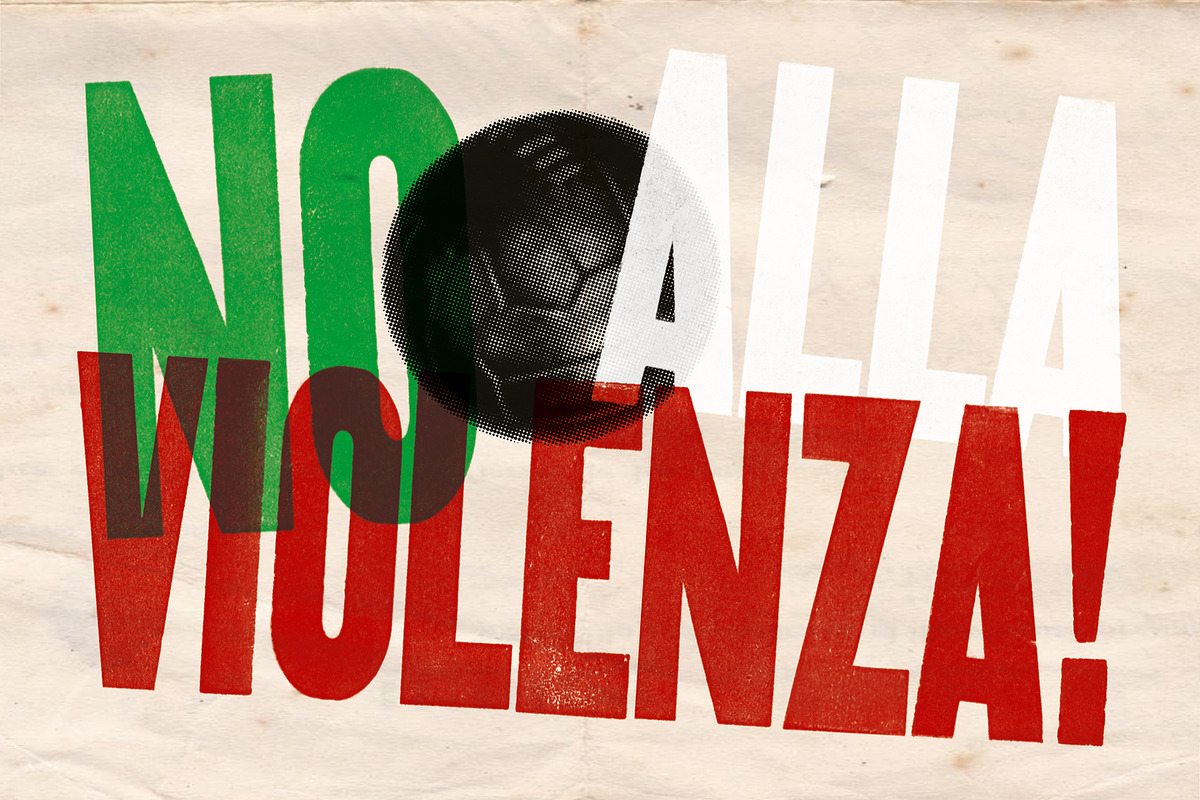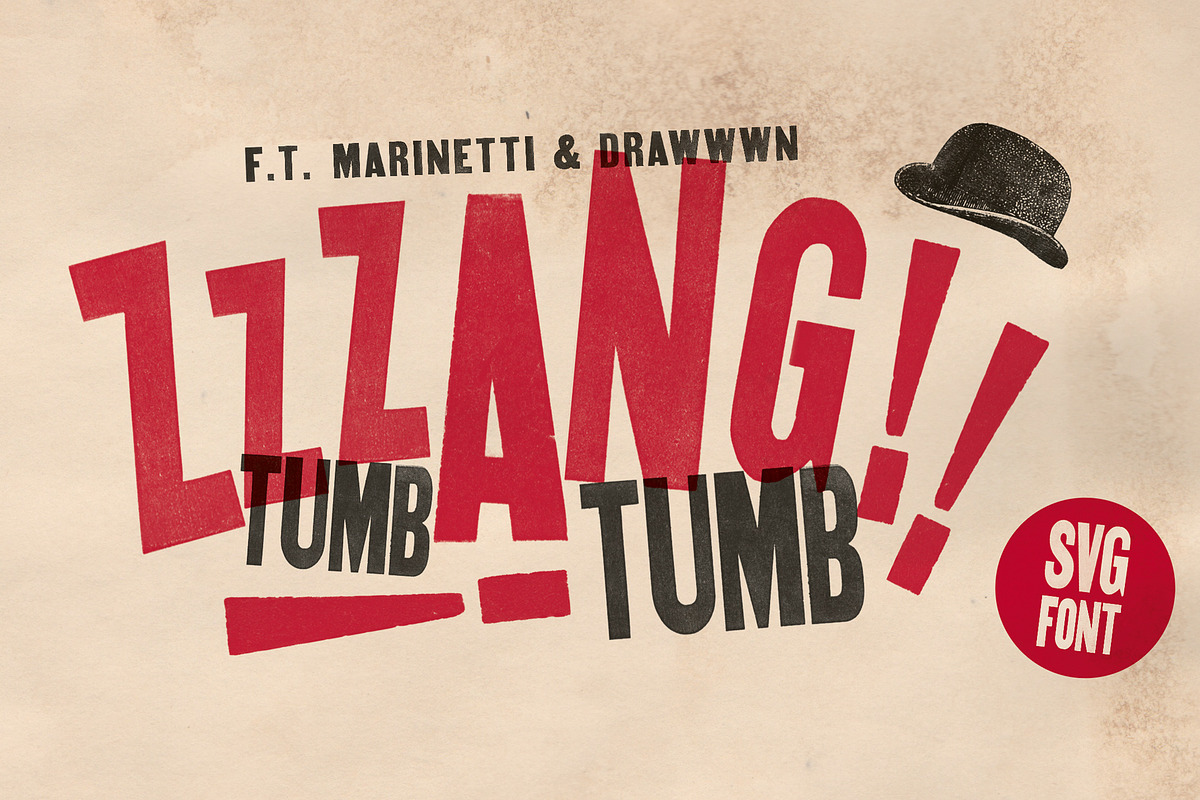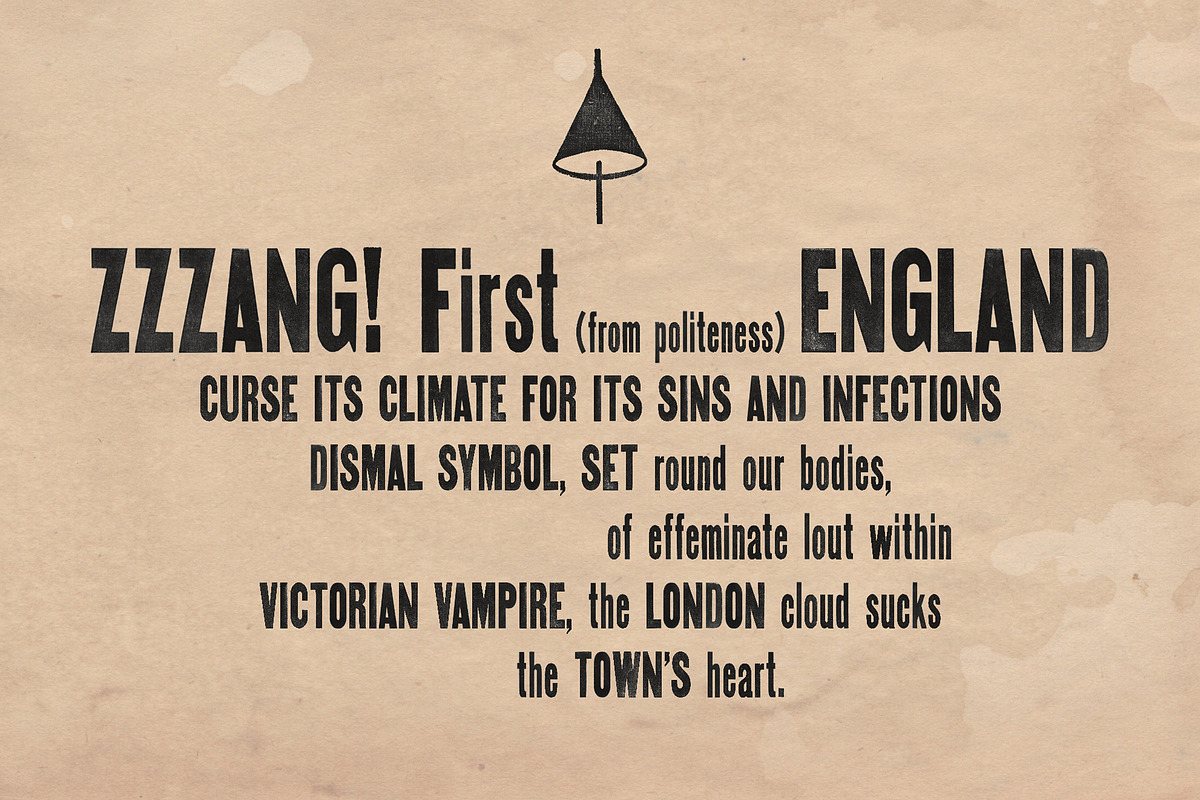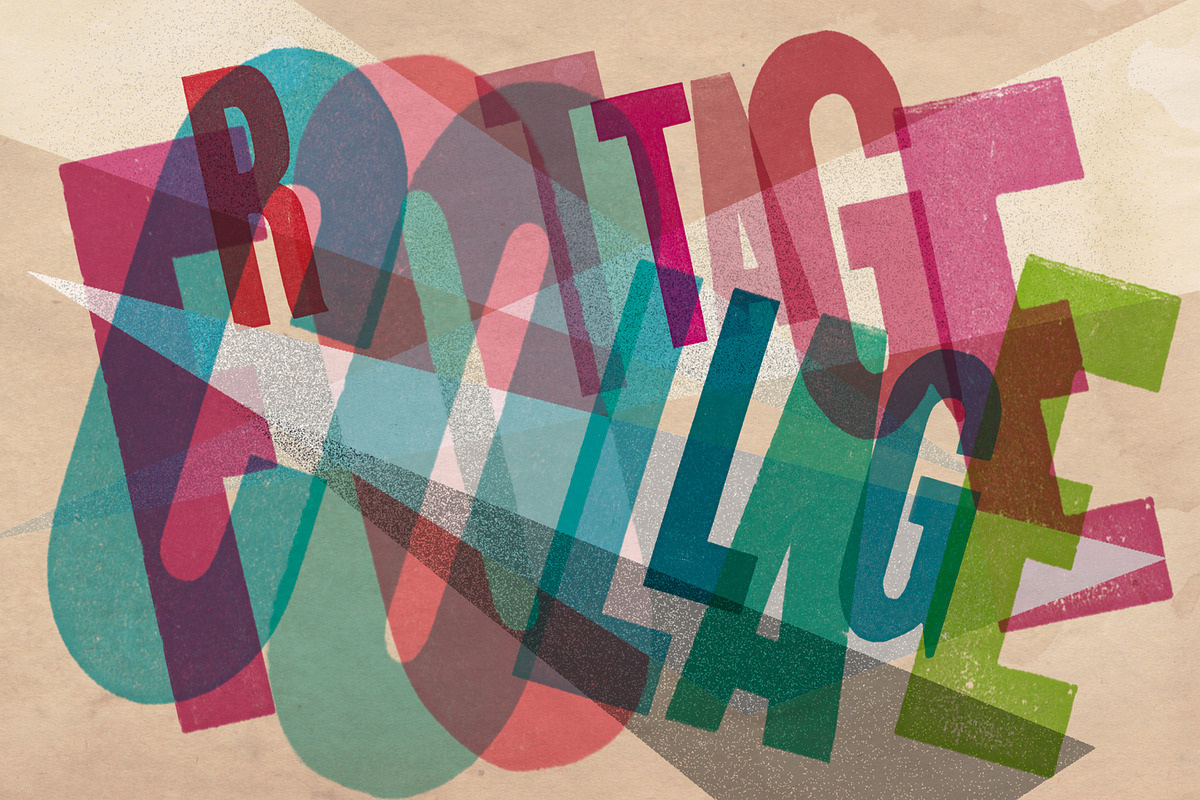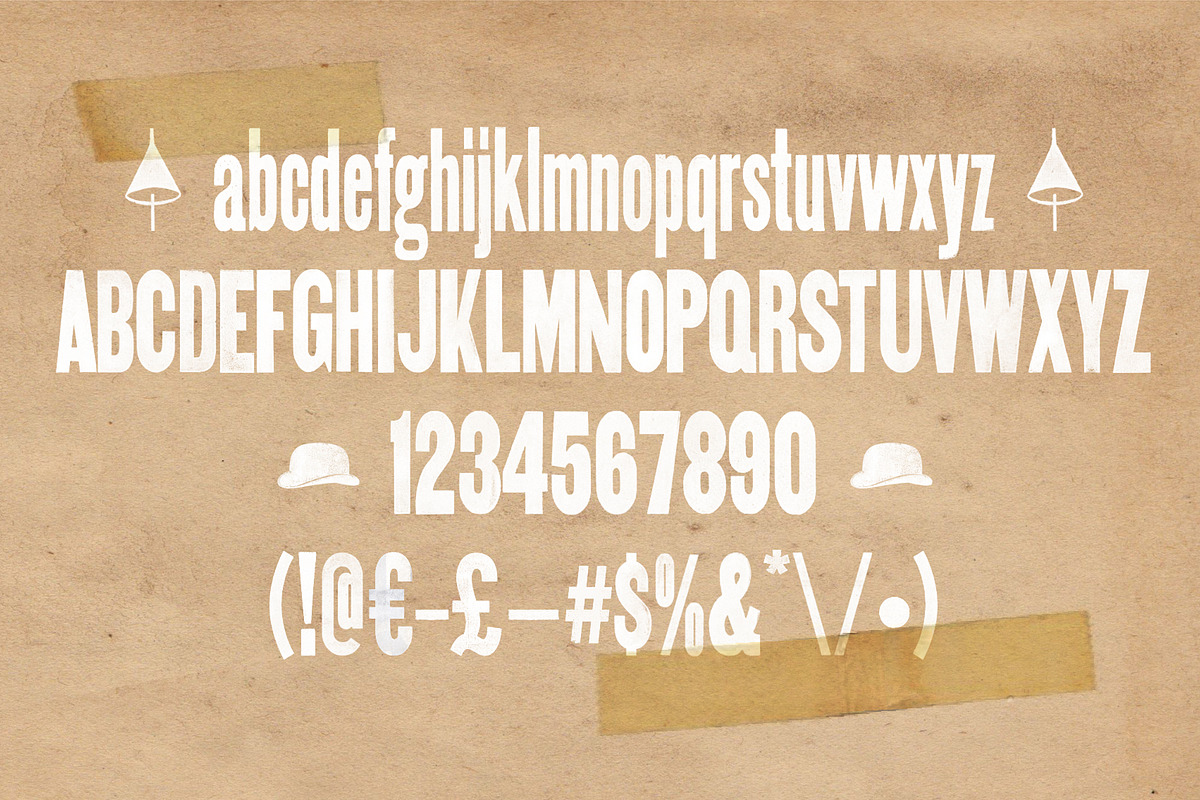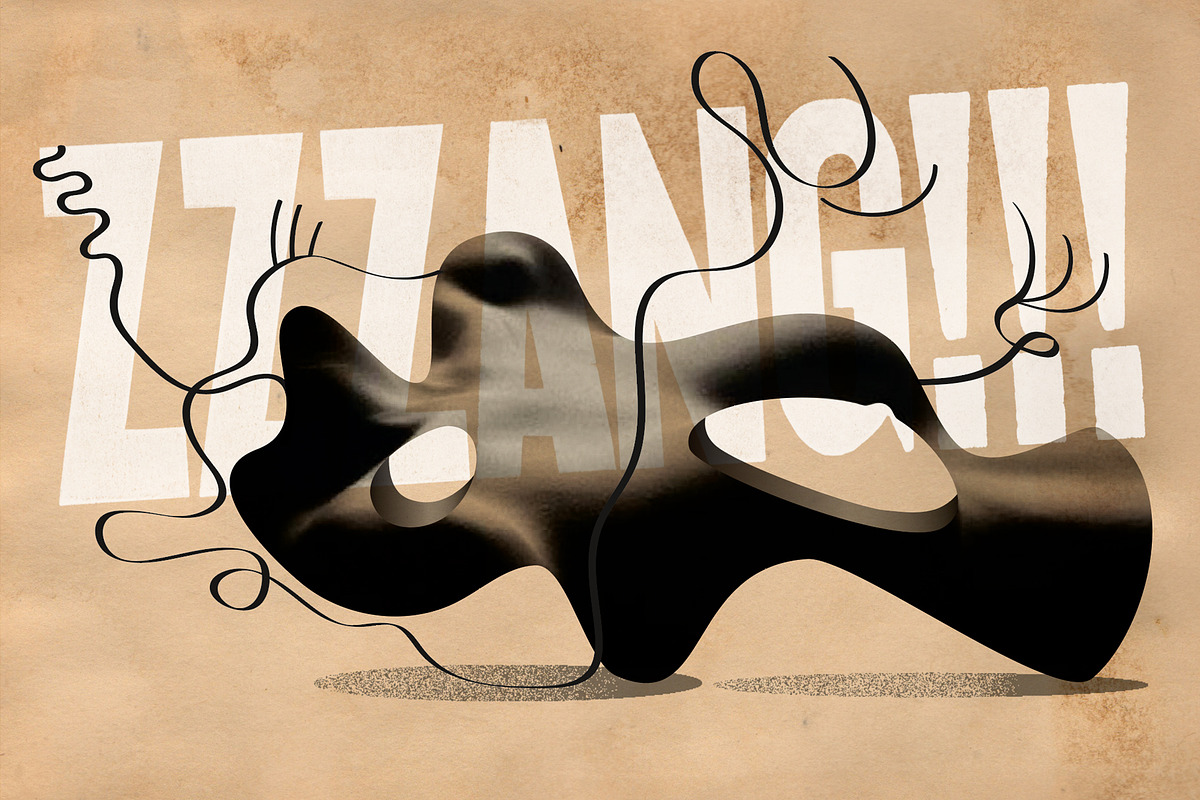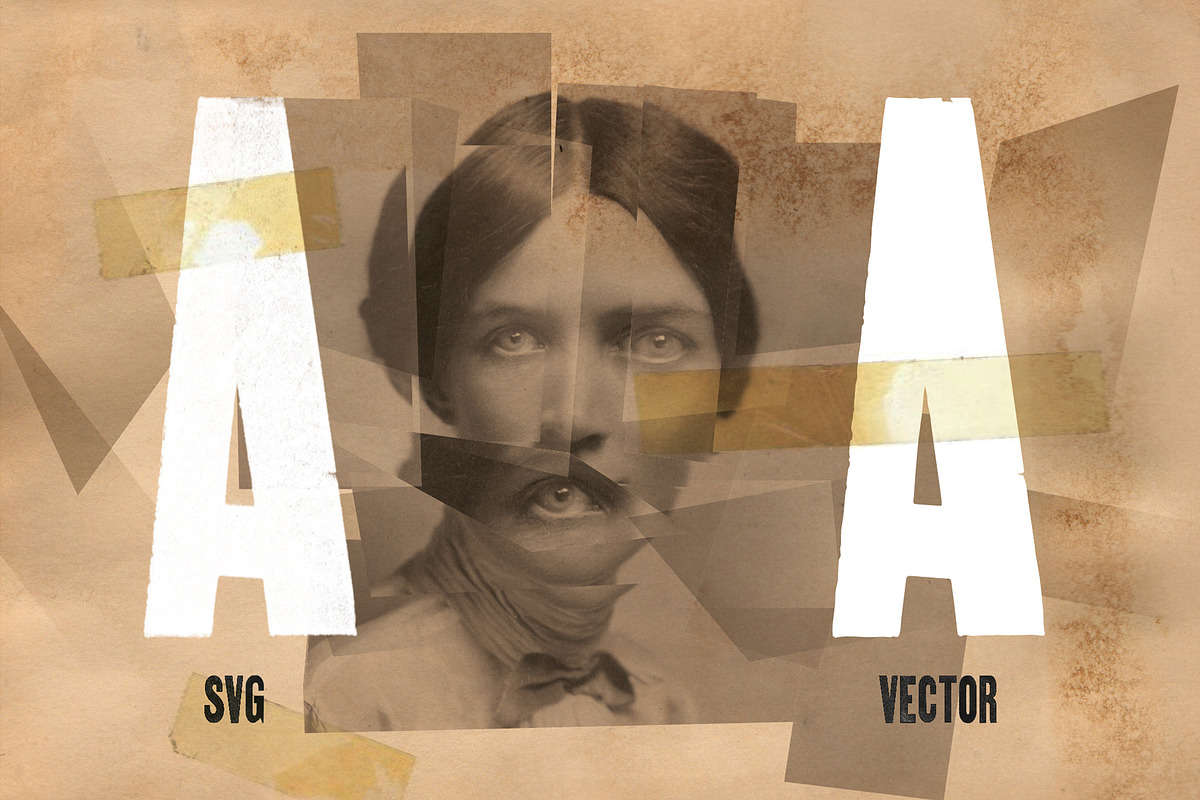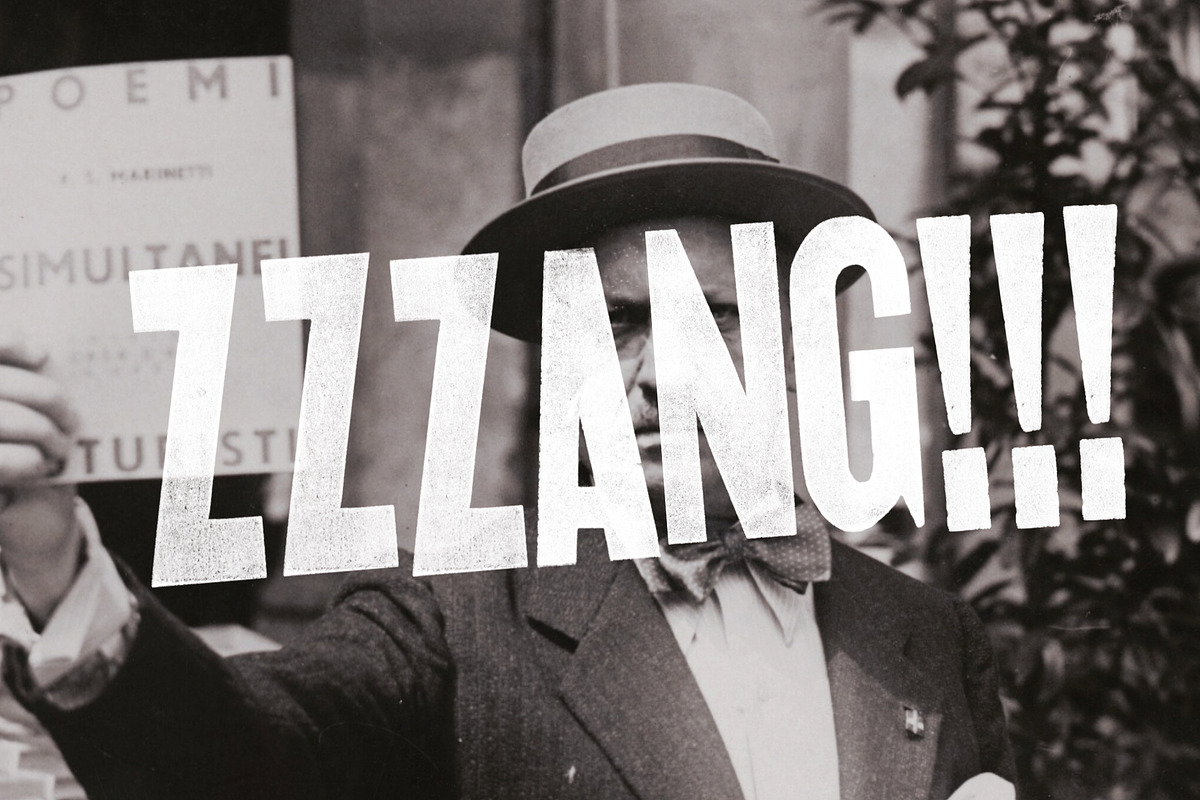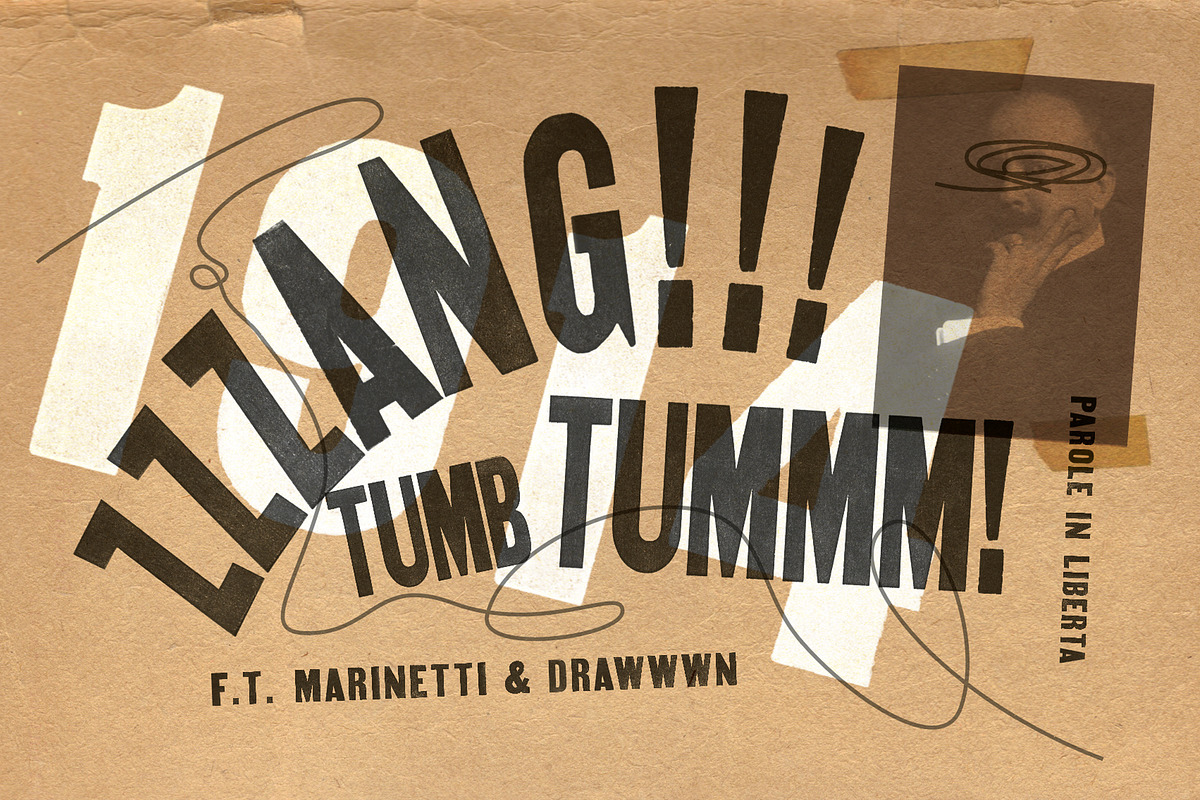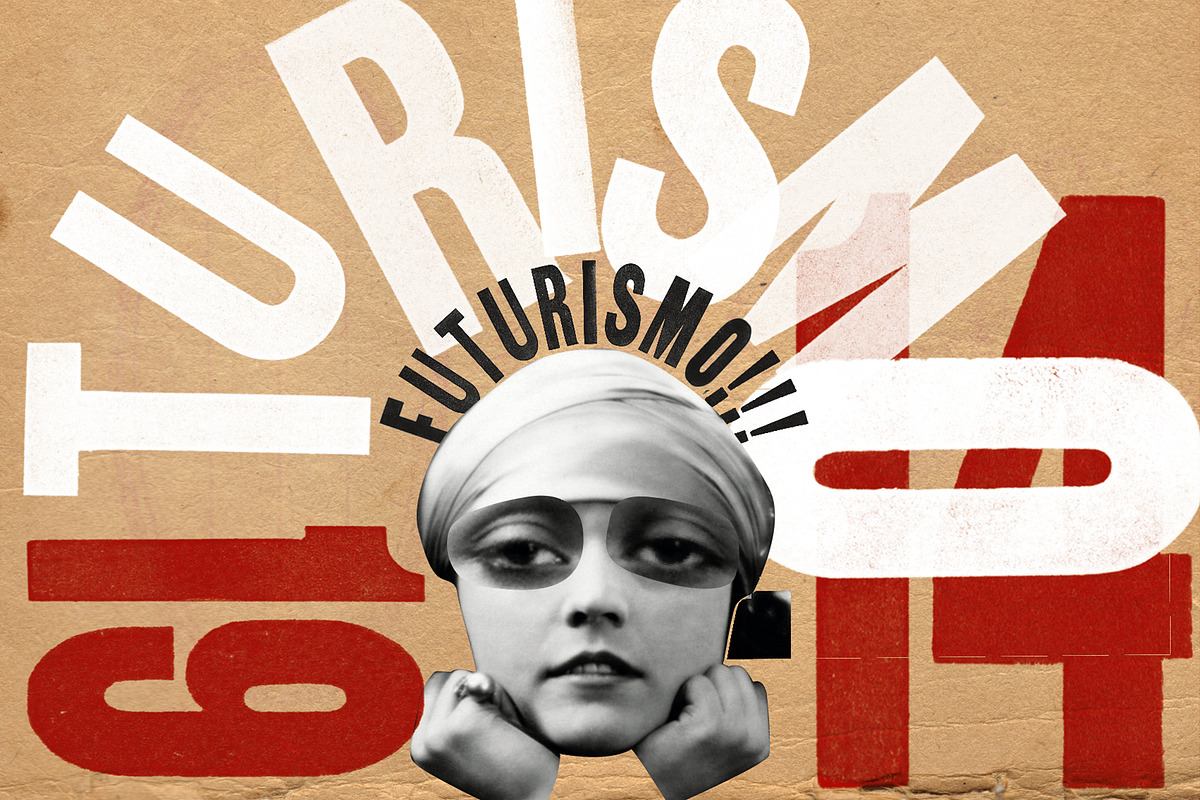
Zzzang! - Futurist wood type
A vintage futurist woodblock font, made for manifestos, proclamations and protestations. Shout your ideas loud and proud no matter how flawed. Comes in full texture SVG & vector formats.